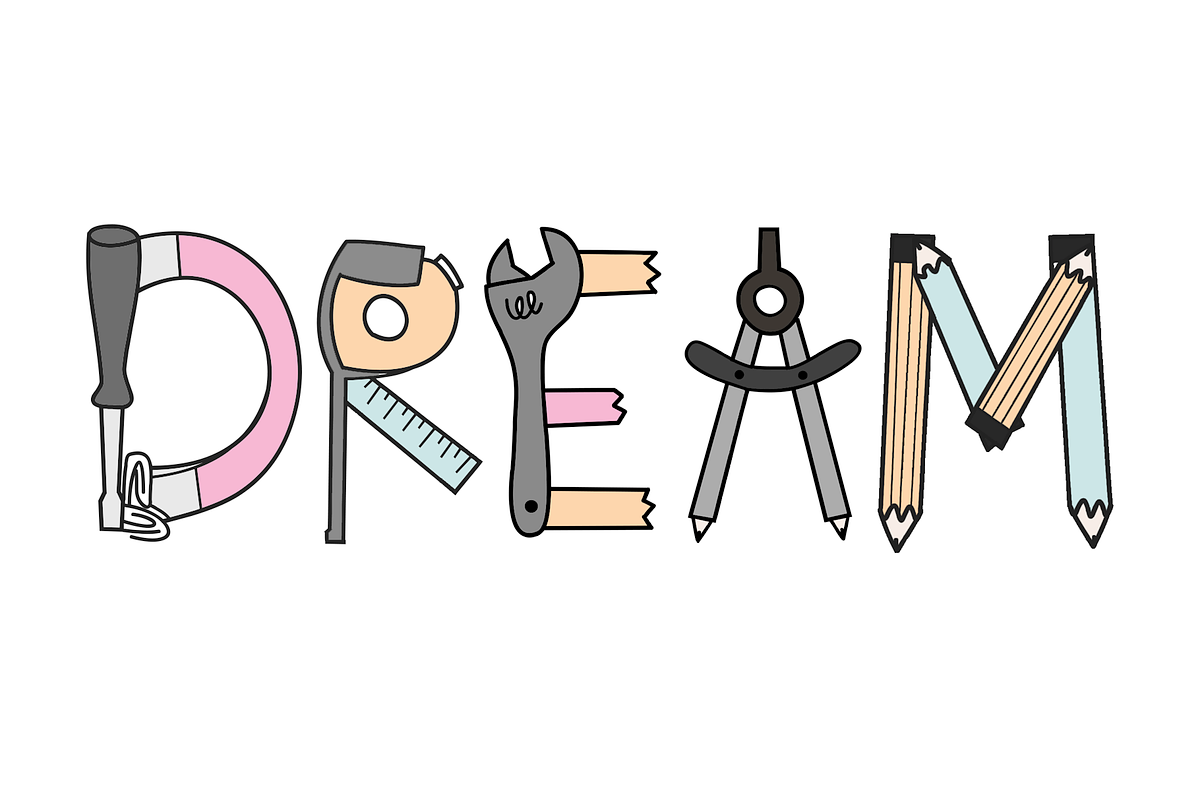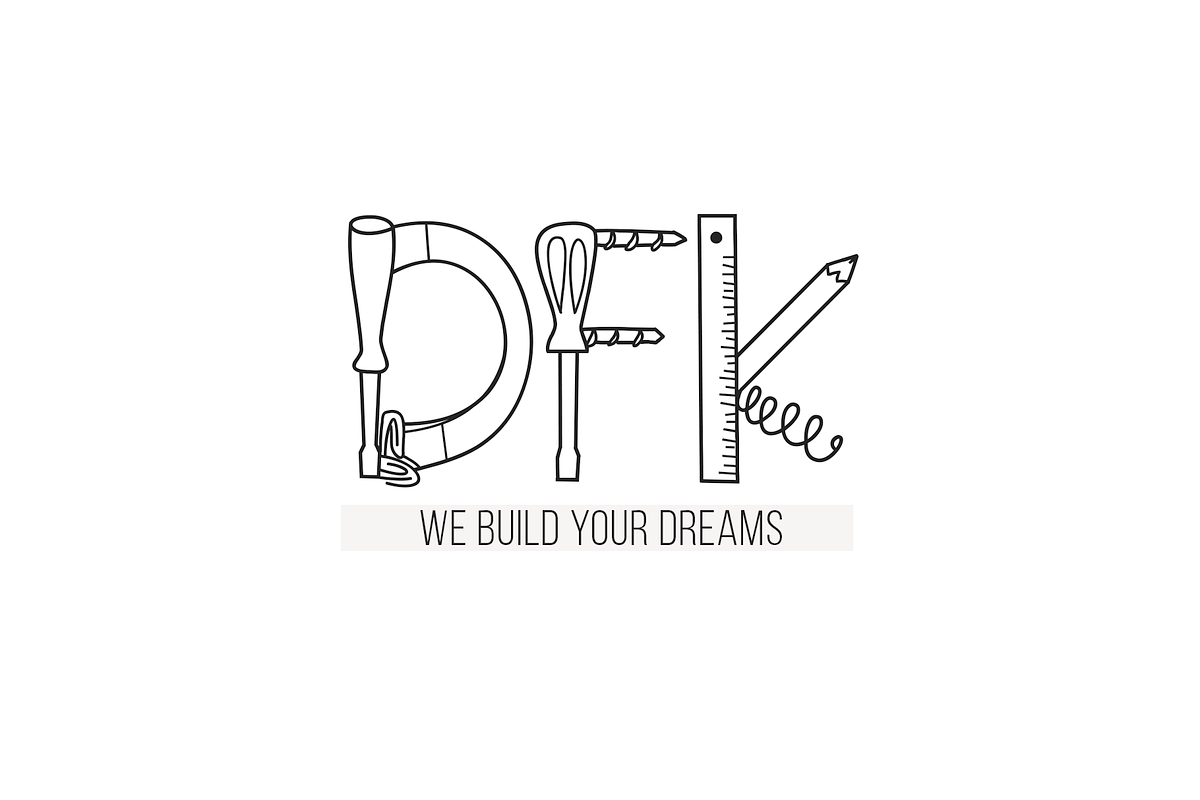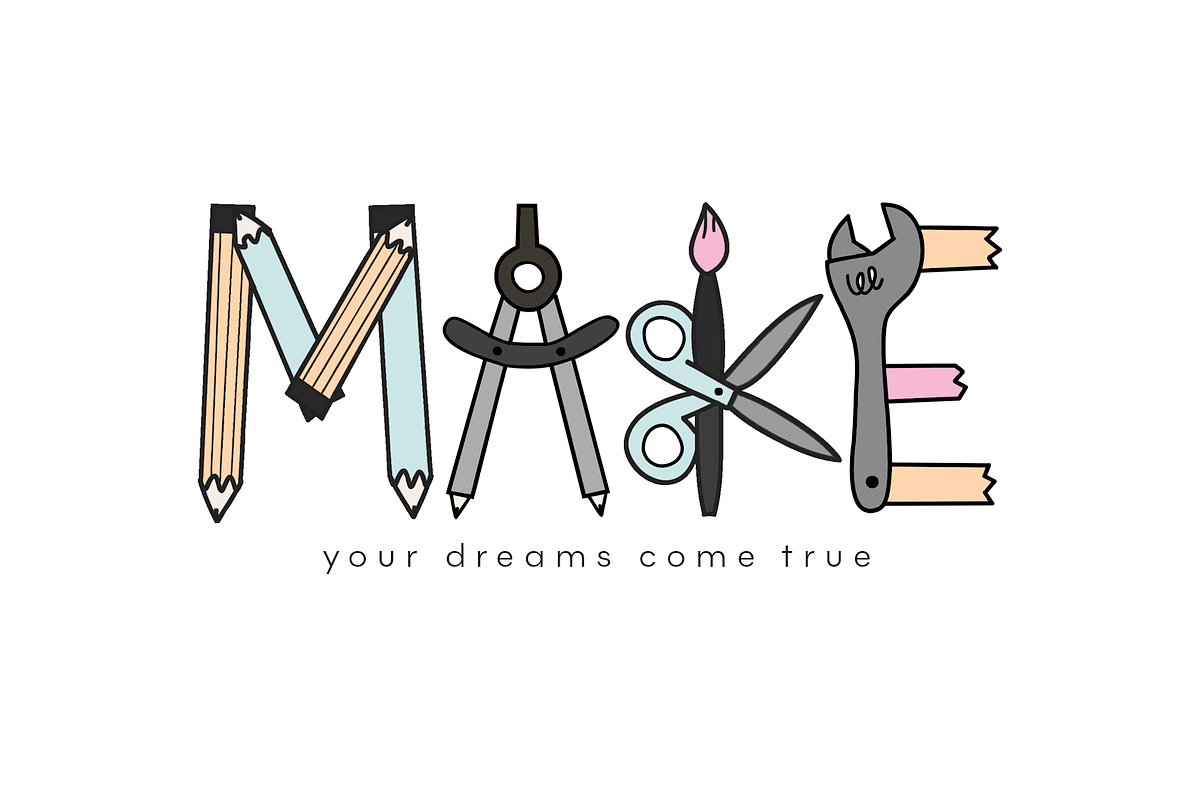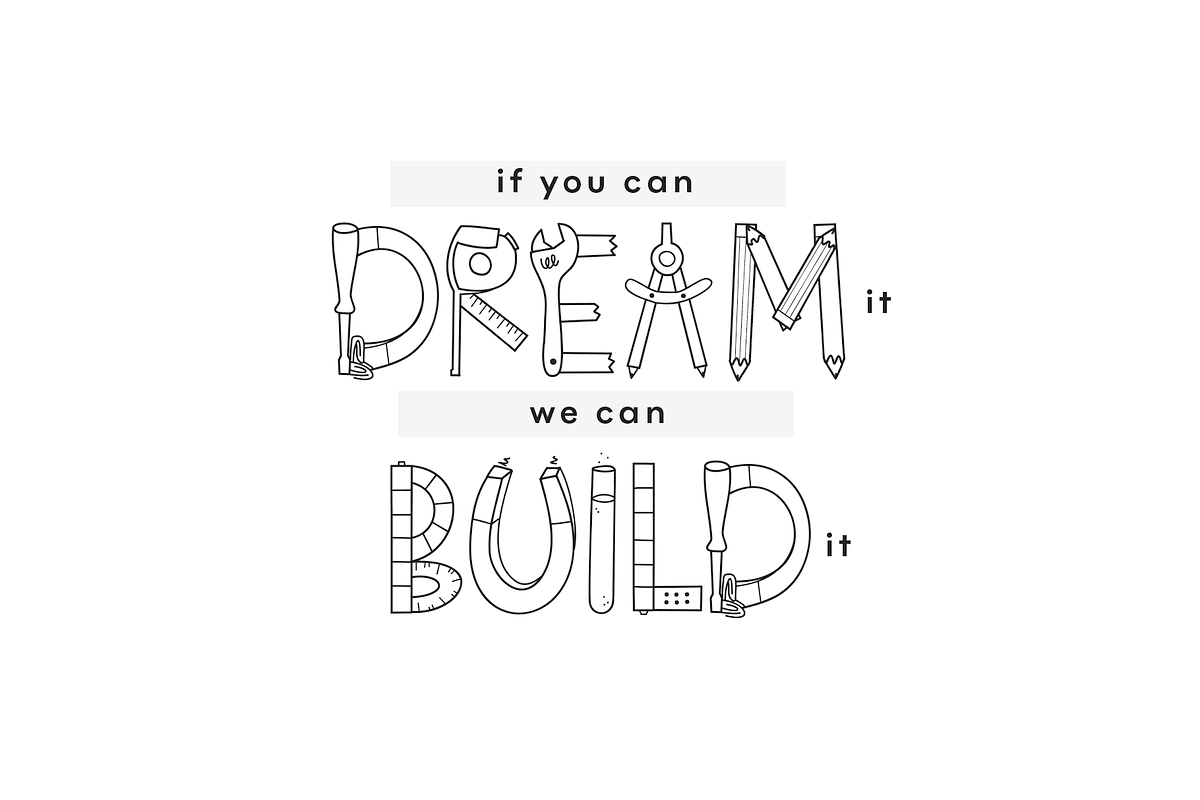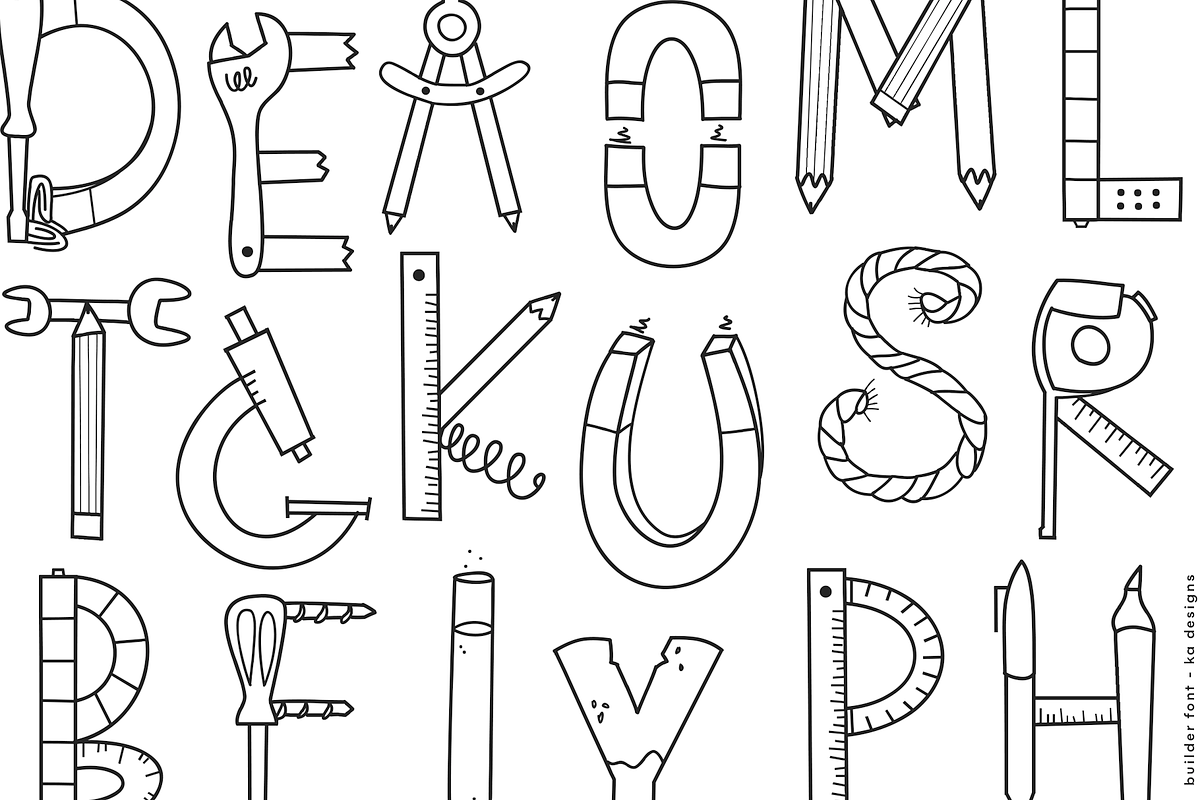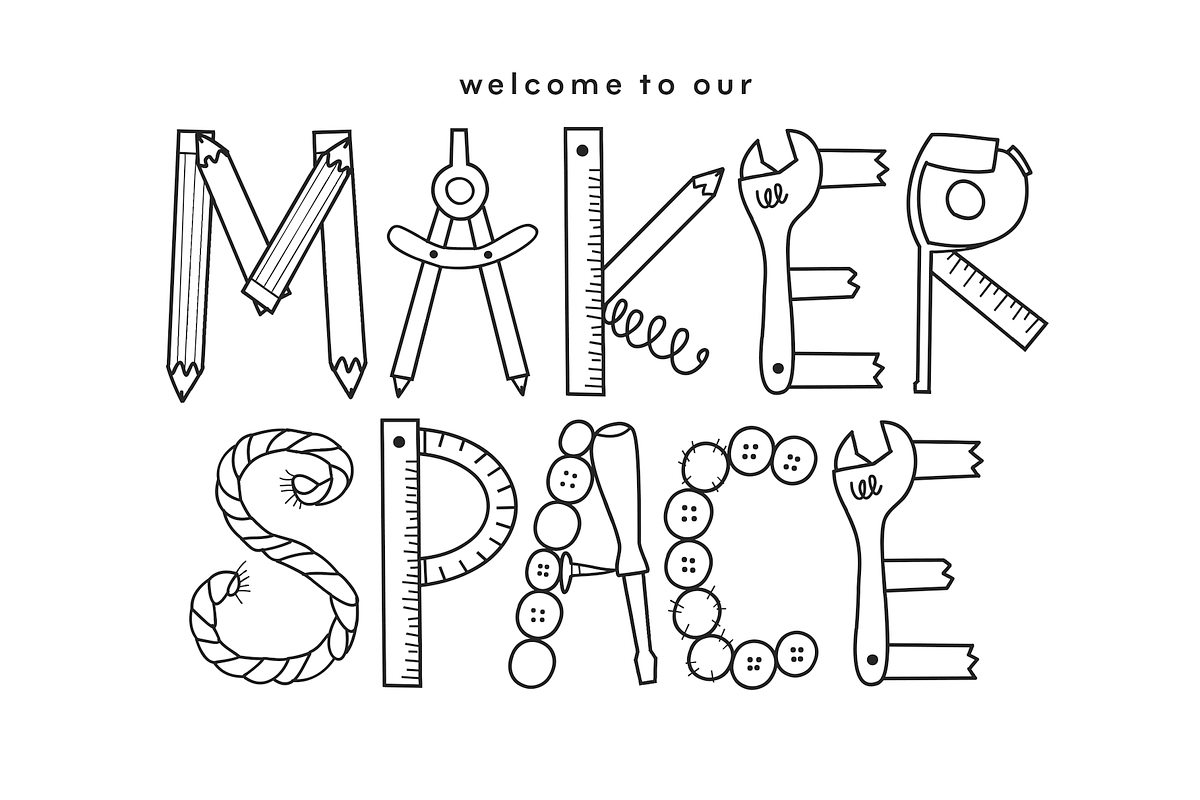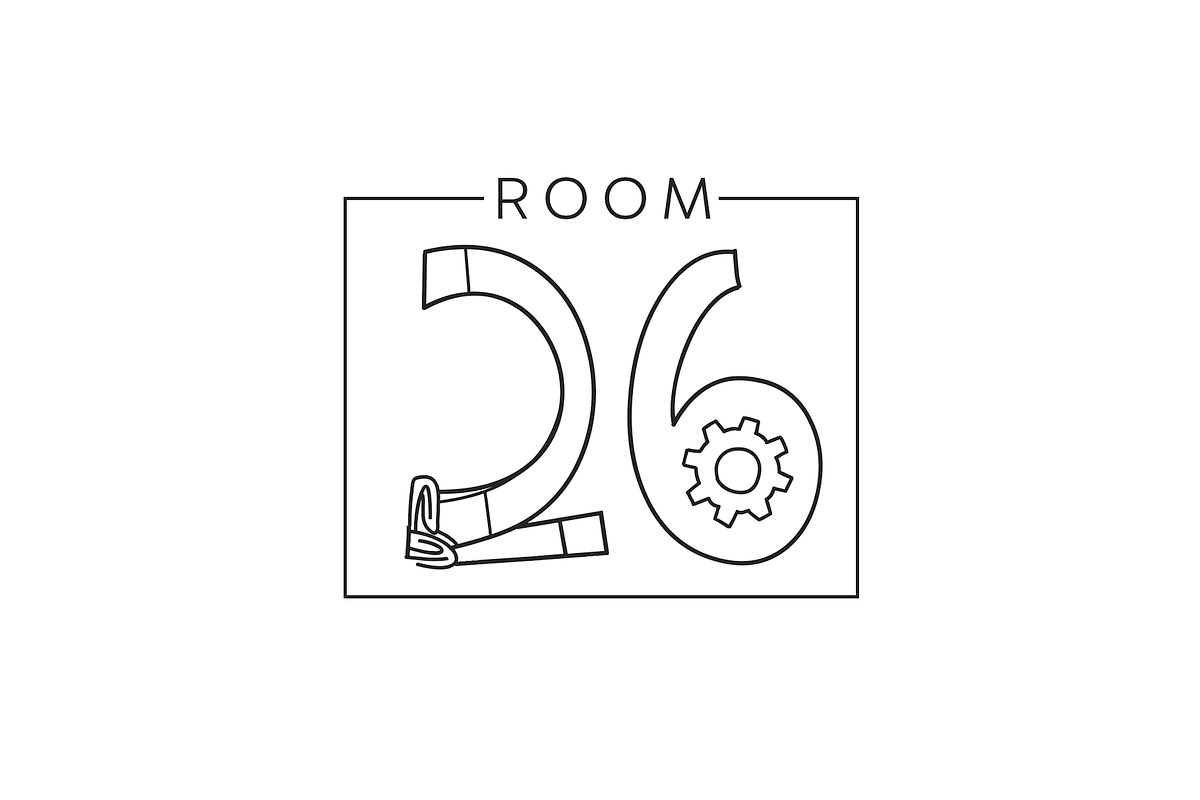
Builder - A STEAM Doodles Font
Builder is a fun, STEAM themed font.
This font is perfect for branding, logos, website design, shirts, business cards, STEAM projects, Makerspace areas, STEM Centers and more!
Builder Doodles: 26 builder doodles [use letters A-Z] Accent characters included.
Builder - A STEAM Doodles Font by KA Designs fits naturally into Branding, posters, packaging, typography.